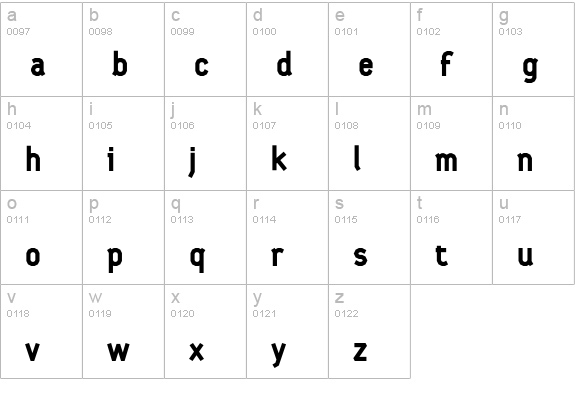
Dubius-Bold Font Details
Dubius-Bold is a strong, high-contrast variant in the Dubius typeface family \xE2\x80\x94 well suited to headlines, attention-grabbing titles, and strong calls-to-action.
Dubius-Bold font is a versatile and modern typeface that exudes confidence and boldness. With its clean lines and strong presence, this font is perfect for making a statement in any design project. Whether you're creating a striking headline or designing a sleek logo, Dubius-Bold will command attention and leave a lasting impression. What's even better is that Dubius-Bold is completely free to download at FontsMarket.com. So, you can add this powerful font to your collection without breaking the bank. Don't miss out on the opportunity to enhance your designs with the impactful Dubius-Bold font, available for free download now!